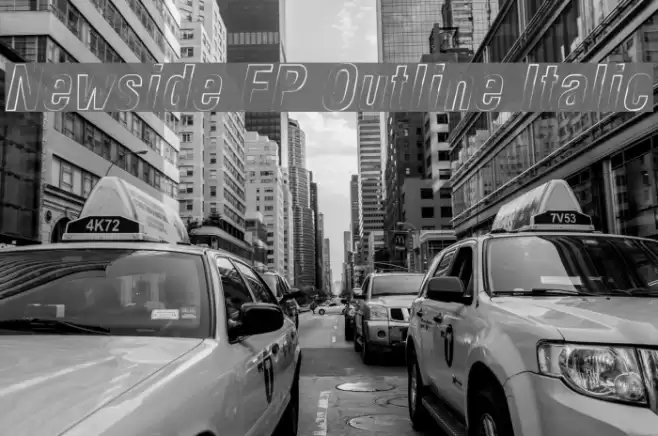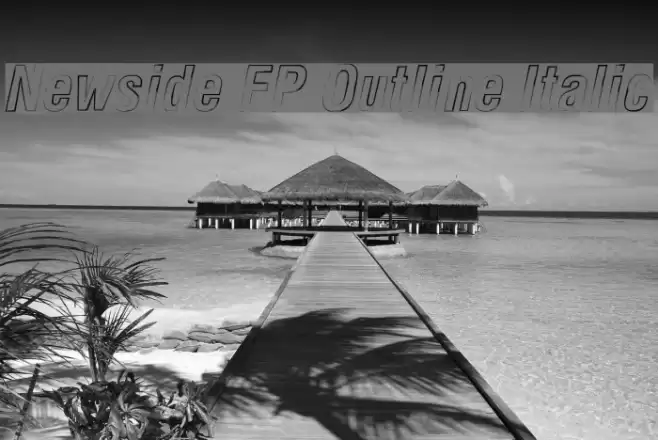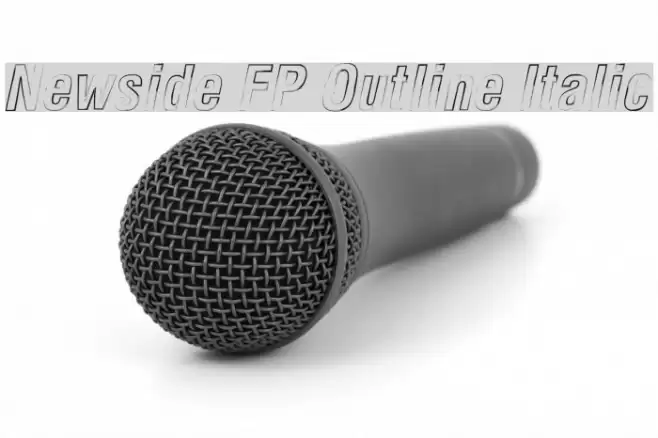
Newside FP Outline Italic Font
Newside FP Outline Italic Description
This font features a modern and sleek outline style with an italic slant, giving it a dynamic and contemporary appearance. The uppercase and lowercase letters maintain a consistent design, with clean lines and a uniform stroke width that creates a balanced and harmonious look. The characters are slightly condensed, enhancing the font's streamlined aesthetic. The inclusion of special characters and numbers ensures versatility for various design applications. Its outline nature makes it ideal for projects that require a bold statement without overwhelming the viewer, such as headlines or logos.
A modern, italic outline font with a sleek and dynamic style from Uncategorized fonts.
• Proposed Projects: Ideal for headlines, logos, posters, and branding materials that require a contemporary and eye-catching design.
• Width: Condensed
• Character Spacing: Normal
• Contrast: Low
• Overall Style: Modern
• Use Case: Headlines, Logos